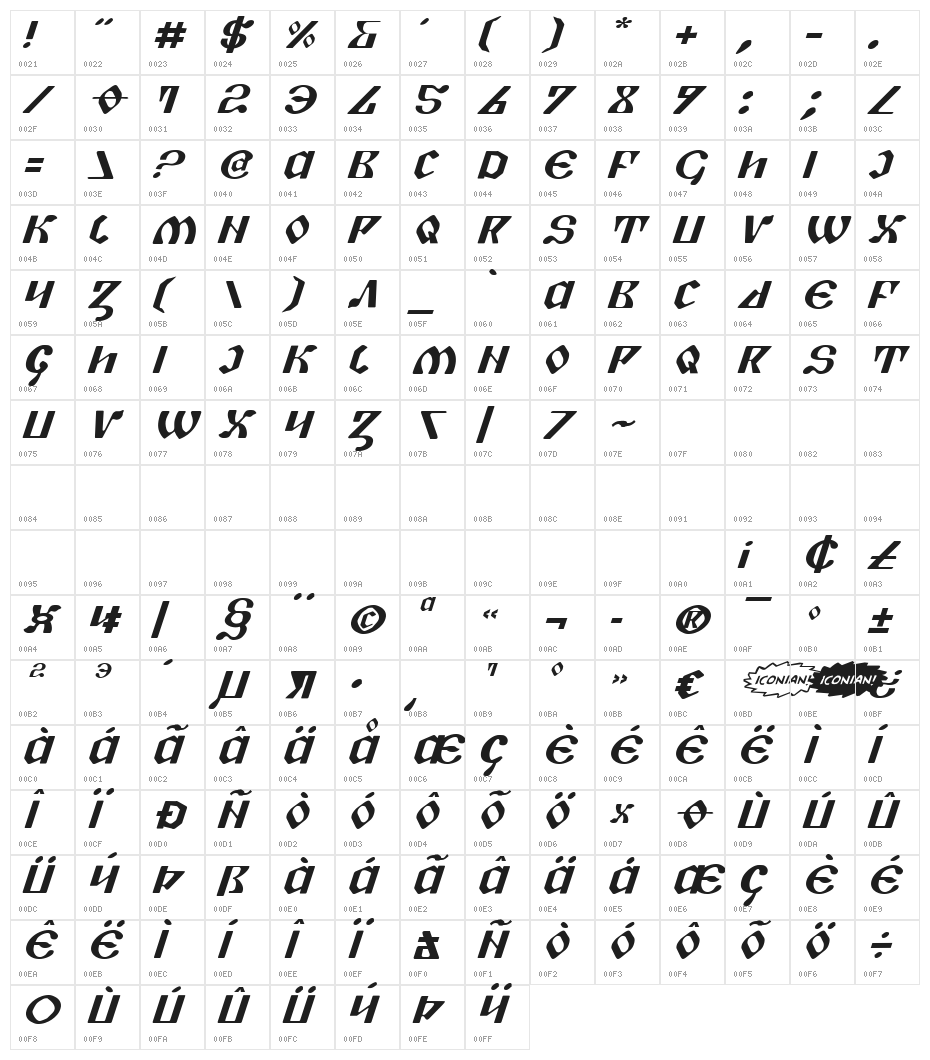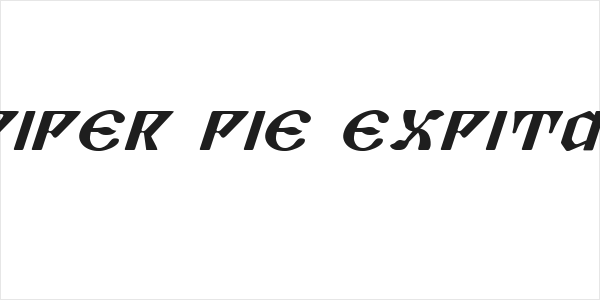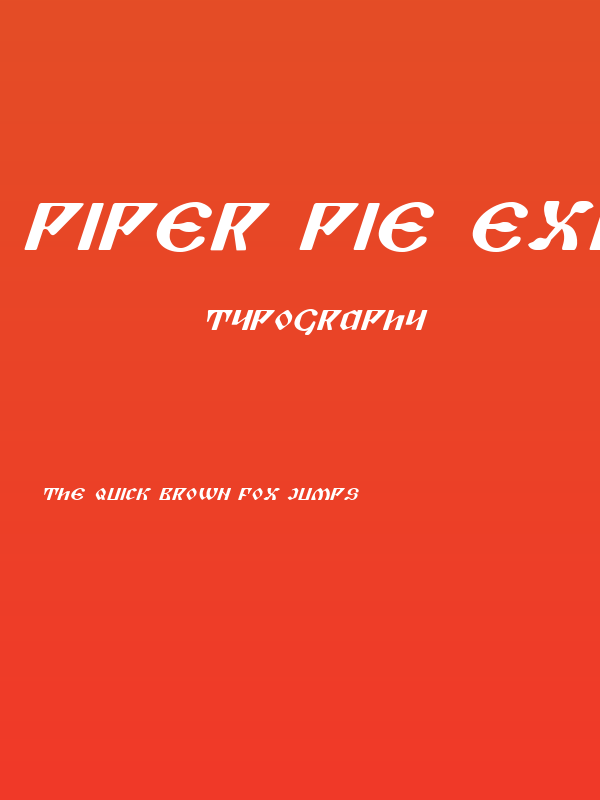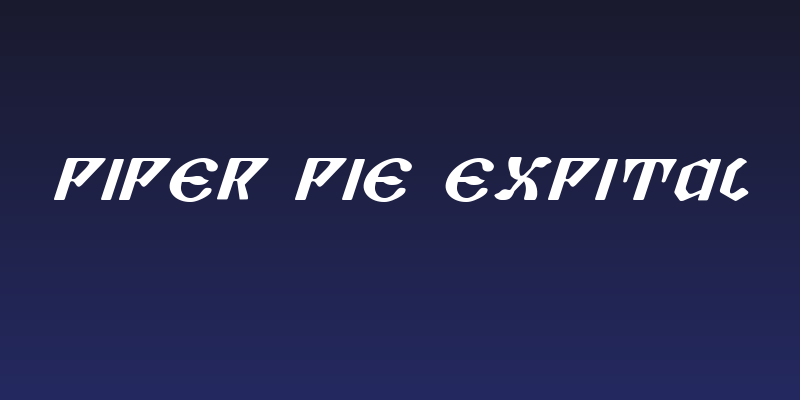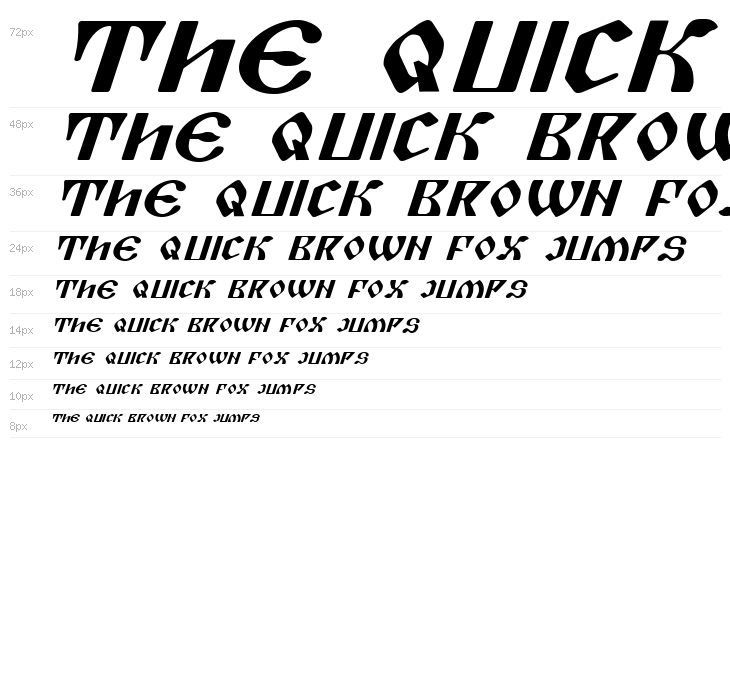
Piper Pie ExpItal Font
Piper Pie ExpItal Description
This font features a bold and expressive style with a distinct italic slant, giving it a dynamic and energetic appearance. The characters are designed with sharp angles and a slight curvature, creating a sense of movement and fluidity. The uppercase letters have a strong presence, while the lowercase letters maintain a consistent flow. Numbers and special characters are crafted to match the overall aesthetic, ensuring uniformity across all elements. The font's unique style makes it suitable for creative and impactful designs.
| Proposed Projects | Ideal for branding, posters, and creative headlines where a bold statement is needed. |